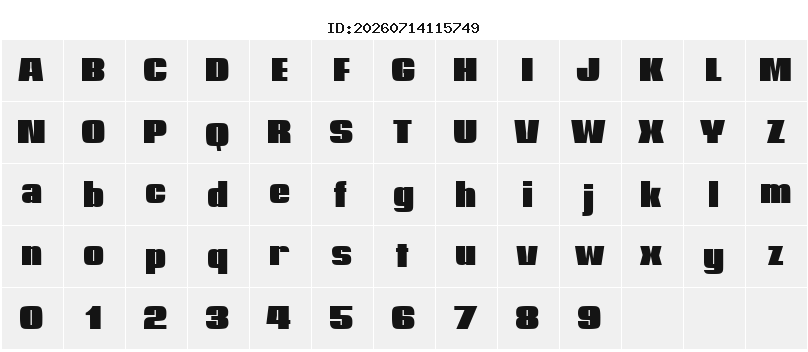
HeavyHeavyFat Preview
• Font Name: HeavyHeavyFat
• Font ID: Altsys Fontographer 3.5 HeavyHeavyFat Regular
• Full Font Name: HeavyHeavyFat Regular
• Version: Altsys Fontographer 3.5 3/9/94
• PostScript Name: HeavyHeavyFat Regular
• Character Count: 185
About HeavyHeavyFat.ttf
HeavyHeavyFat.ttf is a modern, elegant sans-serif font designed for ultimate readability and visual harmony. Perfect for branding, headlines, web design, and print materials.